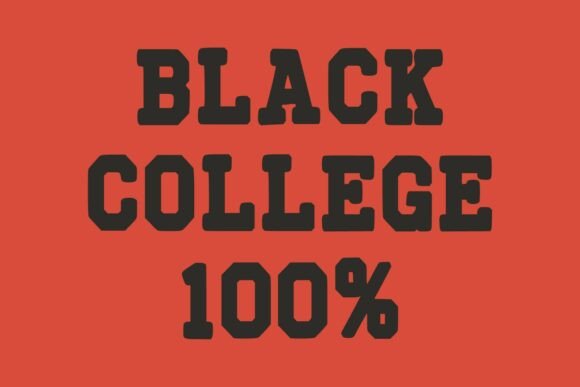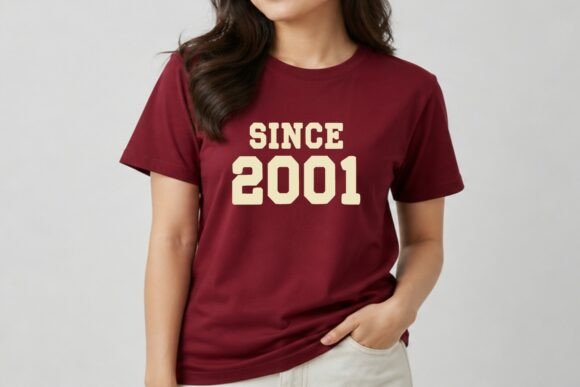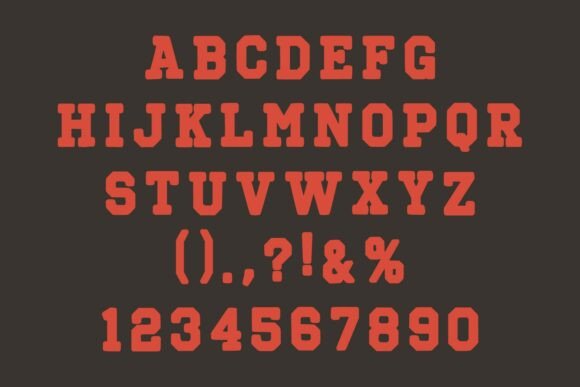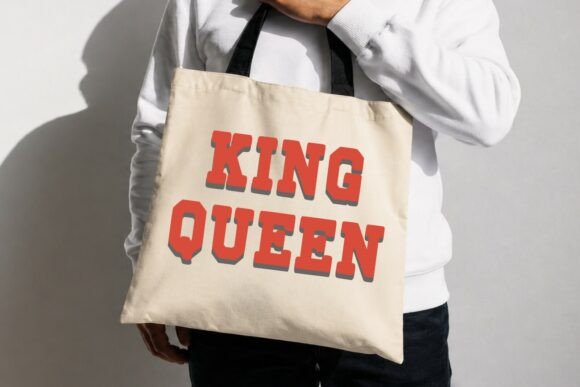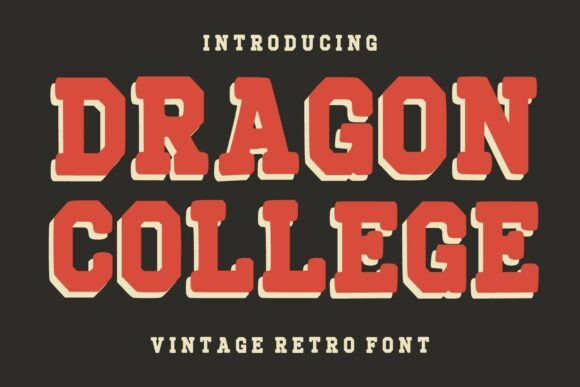
Dragon College Font: A Bold Vintage Retro Display Font for Your Design Needs
Are you looking for a font that can add a touch of nostalgia and sportsmanship to your designs? Look no further than the Dragon College Font. This bold vintage retro display font is inspired by classic collegiate and old-school sports typography, making it perfect for a wide range of design projects. In this article, we’ll take a closer look at the features of Dragon College Font and explore how you can use it to elevate your designs.
What is Dragon College Font?
Dragon College Font is a bold, slab-style font that features strong letterforms with layered shadow effects. The font is designed to evoke the spirit of classic collegiate and old-school sports typography, with a retro aesthetic that’s perfect for both modern and nostalgic designs. Whether you’re creating a logo, branding materials, posters, t-shirt designs, packaging, or varsity-themed projects, Dragon College Font is an excellent choice.
Key Features of Dragon College Font
So, what makes Dragon College Font so special? Here are some of its key features:
- Bold and Strong Letterforms: Dragon College Font features bold, slab-style letterforms that are perfect for creating eye-catching designs.
- Layered Shadow Effects: The font includes layered shadow effects that add depth and dimension to your designs.
- Retro Aesthetic: The font has a retro aesthetic that’s inspired by classic collegiate and old-school sports typography.
- Sporty Collegiate Feel: Dragon College Font has a sporty collegiate feel that’s perfect for varsity-themed projects and sports-related designs.
- Versatile: The font is versatile and can be used for a wide range of design projects, from logos and branding to posters and packaging.
How to Use Dragon College Font
Now that we’ve covered the features of Dragon College Font, let’s talk about how you can use it in your designs. Here are some ideas to get you started:
- Logos and Branding: Use Dragon College Font to create bold, eye-catching logos and branding materials that make a statement.
- Posters and Flyers: The font is perfect for creating posters and flyers for sports events, concerts, and other activities.
- T-Shirt Designs: Dragon College Font is a great choice for t-shirt designs, especially for sports teams, schools, and other organizations.
- Packaging: Use the font to create eye-catching packaging for sports-related products, such as athletic wear and equipment.
- Varsity-Themed Projects: The font is perfect for varsity-themed projects, such as sports jerseys, letterman jackets, and other apparel.
Why Choose Dragon College Font?
So, why should you choose Dragon College Font for your design needs? Here are just a few reasons:
- Unique and Eye-Catching: The font is unique and eye-catching, making it perfect for designs that need to stand out.
- High-Quality: Dragon College Font is a high-quality font that’s designed to look great in any design.
- Versatile: The font is versatile and can be used for a wide range of design projects.
In conclusion, Dragon College Font is a bold vintage retro display font that’s perfect for designers and crafters who need a font that can add a touch of nostalgia and sportsmanship to their designs. With its strong slab-style letterforms, layered shadow effects, and retro aesthetic, this font is ideal for a wide range of design projects, from logos and branding to posters and packaging. Whether you’re creating modern or nostalgic designs, Dragon College Font is an excellent choice.